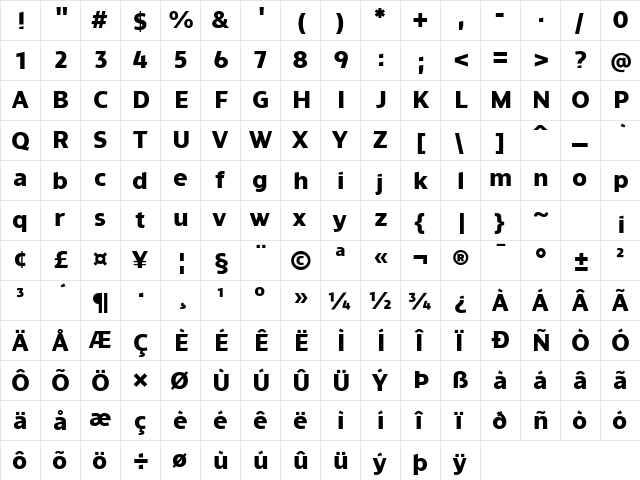
Evander ExtraBold
ExtraBold · Punchform Mihai Sorin ·
Foundry Punchform
StyleExtraBold
FoundryPunchform
DesignerMihai Sorin
Design Context for Evander Typeface
Evander takes a measured approach to typography — its balanced proportions and neutral character make it a reliable workhorse for both digital and print work. Its bold stroke weight gives it real presence on the page.